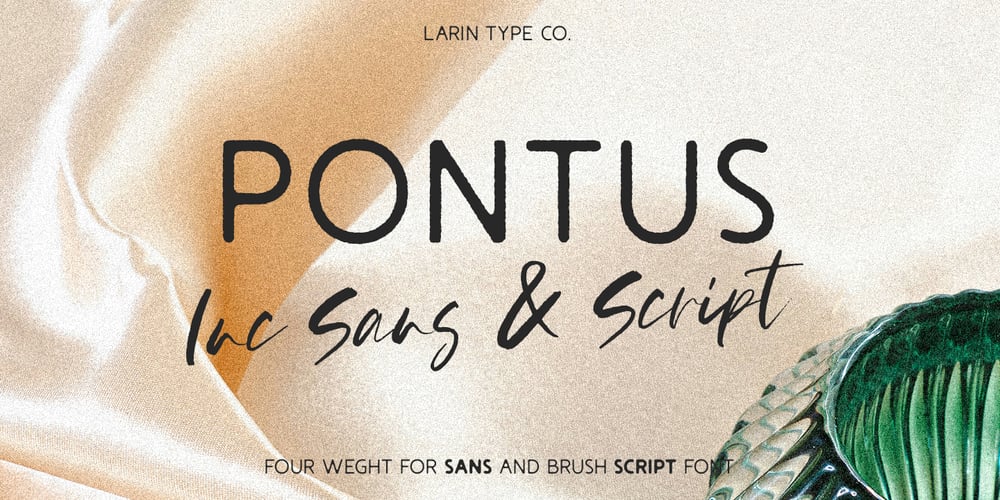
Pontus Font Family was designed by Pavel Larin and published by Larin Type Co. Pontus contains 5 styles and family package options. Pontus is a modern font family that includes a brush script and an ink sans serif in four weights (light, regular, medium, bold).Sans serif has a rough texture and includes only uppercase letters, the script also has a rough texture and imitates a brush, it also includes alternates for lowercase letters and some ligatures, together they create an excellent pair and work well together. Perfect for creating logos, short text messages, headlines, branding, book covers, magazines, flyers, etc.